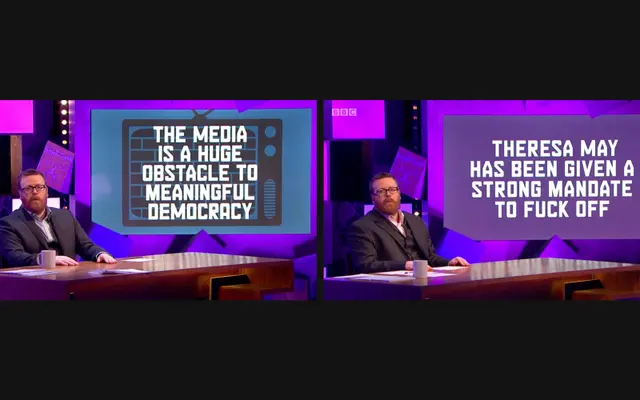
Function specimen from The Designers Foundry
A caps-only constructivist display typeface by graphic artist Anthony Burrill, built on a grid with stencil-influenced alternate characters.
Designed by Anthony Burrill as a response to collected examples of utilitarian and grid-based lettering, it offers two widths, Regular and Condensed, with stencil and extended variants planned. Alternate characters are accessible via upper/lowercase key switching and OpenType features, giving the typeface some compositional flexibility despite its strict geometric construction. Its roots in persuasive print and constructivist graphic traditions suit it to posters, campaigns and headline work.
Caps-only display typeface built on a grid and informed by constructivist and utilitarian letterform traditions, with stencil-influenced alternates accessed via OpenType.